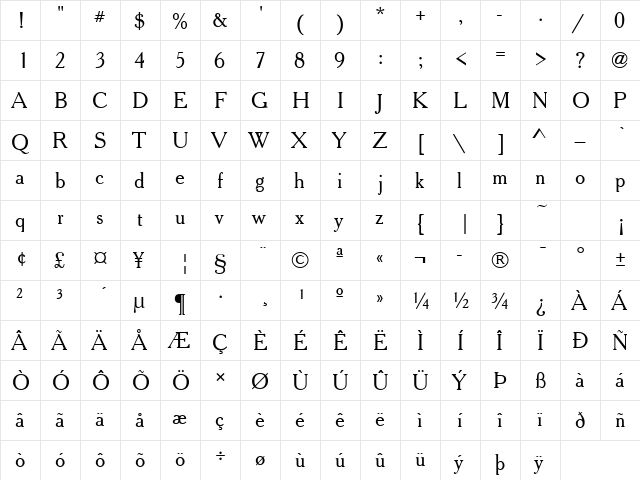
CheltenhamOldStyT Regular
Design Context for CheltenhamOldStyT Typeface
CheltenhamOldStyT takes a measured approach to typography — its balanced proportions and neutral character make it a reliable workhorse for both digital and print work.
Pro Tip: Use CheltenhamOldStyT in both headline and body roles to test its range before committing to a single application.